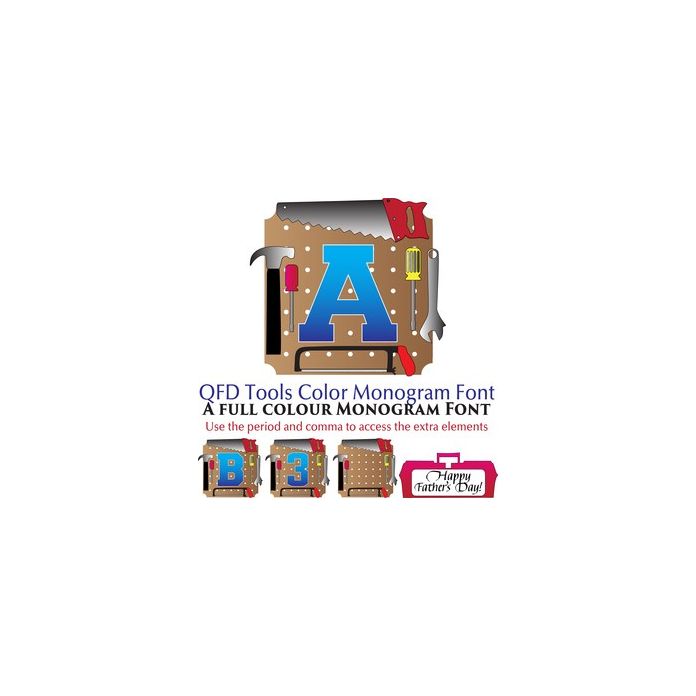
qfd tools colour monogram font
Not just for Father’s Day, but you can use the period and comma to access the Father’s Day label and/or the blank pegboard. Please note this font is compatible in Silhouette Studio and some other softwares, but will show as a filled-in solid when used with incompatible programs. See more about our fonts (including tutorials) by clicking the Instructions button.